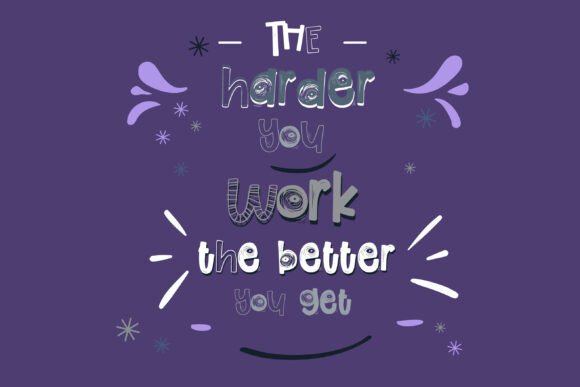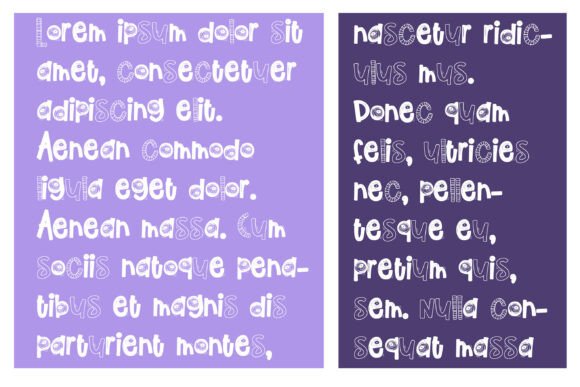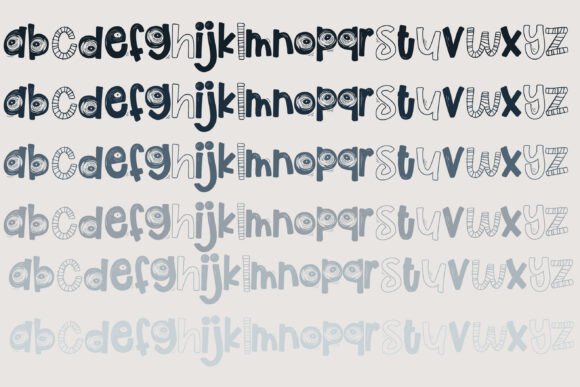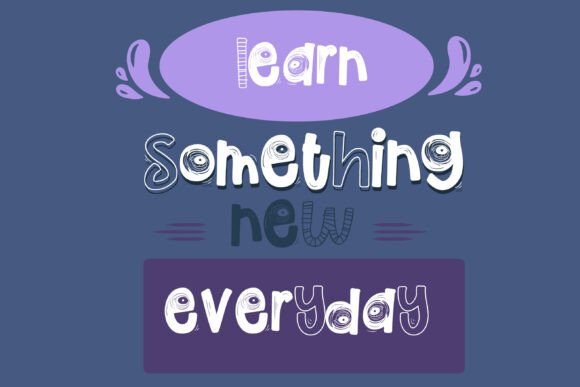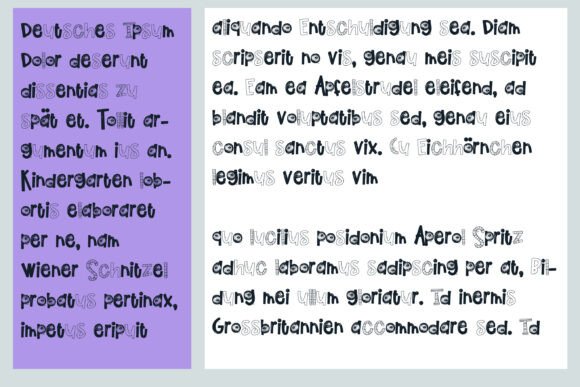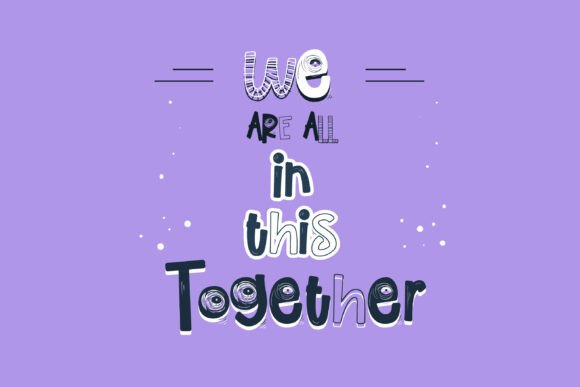
Get Ready for a Spooky Design Twist
Have you ever stared at a blank page, pencil in hand, waiting for inspiration to strike? For designers, those moments of creative spark can be the most thrilling – and sometimes, the most terrifying. For those who dare to venture into the unknown, we have just the thing: a font that’s equal parts eerie and enchanting.
| 📌 Product Name | Cowberry Scary Font |
Meet the Cowberry Scary Font, a hand-crafted sans serif that’s sure to send shivers down your spine. With its mummy wrapping and eyeballs scattered throughout, this font is perfect for adding a touch of macabre to your next design project. Whether you’re creating a spooky invitation, a creepy greeting card, or a haunting art piece, the Cowberry Scary Font is sure to bring your vision to life.
For designers, the value of this font lies in its versatility and uniqueness. With its hand-crafted design, the Cowberry Scary Font offers a level of authenticity that’s hard to find in digital fonts. Its scary yet charming aesthetic makes it perfect for designers who want to add a touch of personality to their work.
Cowberry Scary Font Key Features
- Font Family: Cowberry Scary Font
- Unique Characteristics: Distressed, Horror, Spooky, and Grunge styles make it ideal for Halloween and Horror-themed designs
Cowberry Scary Font Review
At first glance, the Cowberry Scary Font seems like a quirky addition to any design project. Here’s a breakdown of what I think:
- Unique Character: The font’s playful and eerie vibe is sure to add a touch of personality to any project.
- Customization Options: The font offers a range of variations, from bold to italic, allowing designers to experiment with different looks.
- Wide Character Set: The font includes a wide range of characters, including special symbols and punctuation, making it versatile for various design applications.
- Limited Readability: The font’s bold lines and irregular shapes can make it difficult to read, especially in large blocks of text.
- Not Ideal for Body Text: Due to its busy design, the font may not be the best choice for body text or long paragraphs.
Overall, the Cowberry Scary Font is a great addition to any designer’s toolkit for specific projects that require a spooky or playful touch. However, its limitations should be considered when choosing a font for body text or readability-driven designs.
Tips for Getting the Most Out of Cowberry Scary Font
For the best results, use Cowberry Scary Font in bold or italic styles to add emphasis to your text.
Experiment with different font sizes and colors to create a spooky atmosphere.
Cowberry Scary Font is perfect for:
Designing Halloween-themed graphics and decorations.
Creating spooky book covers or posters.
Adding a touch of eeriness to your social media graphics.
Alternatives to Cowberry Scary Font
Creepster
Creepster is a bold, handwritten font that can add a touch of eeriness to your design. It’s perfect for titles, headings, and other emphasis. It has a similar feel to Cowberry Scary Font, but with more refined lines and a more cohesive look.
Comparison: Creepster has a more polished look than Cowberry Scary Font, making it a great choice for professional designs. However, it may lack the raw, edgy feel that Cowberry Scary Font provides.
Skraney
Skraney is a distressed, handwritten font that can add a sense of grit and grime to your design. It’s ideal for designs that need a rough, industrial look. While it shares some similarities with Cowberry Scary Font, it has a more chaotic, unpredictable feel.
Comparison: Skraney has a more aggressive, in-your-face look than Cowberry Scary Font, making it a great choice for designs that need a bold statement. However, it may be too overwhelming for more subtle designs.
Great Vibes is a fun, handwritten font that can add a playful touch to your design. It’s perfect for titles, headings, and other emphasis. While it’s not as scary as Cowberry Scary Font, it has a similar feel in terms of its playful, handwritten style.